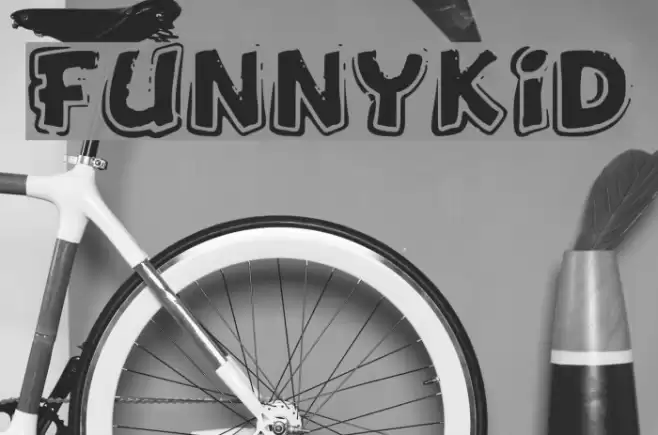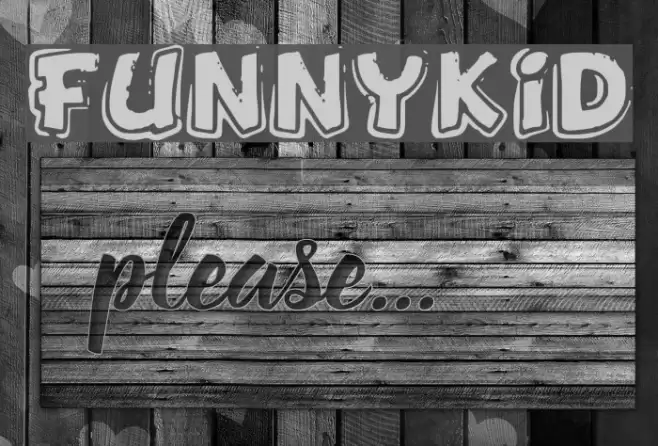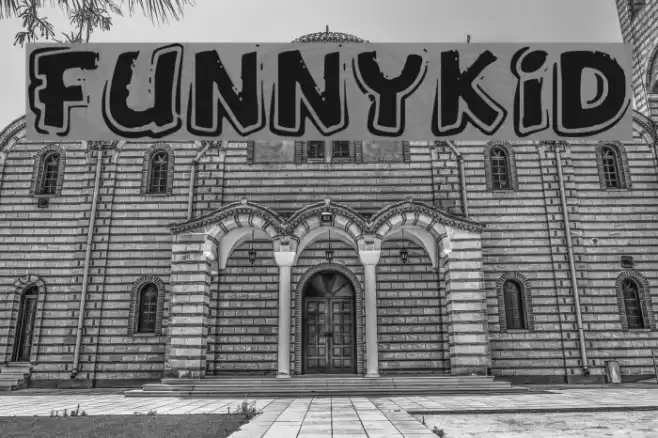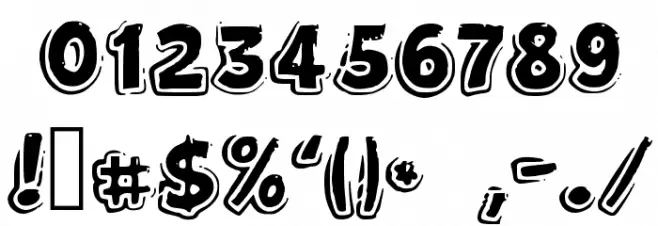
FunnyKid Font
FunnyKid Description
This playful and bold font features a cartoonish style with thick, uneven strokes and a slight shadow effect that gives it a three-dimensional appearance. The letters are uppercase with a whimsical, hand-drawn quality, making them stand out with a fun and energetic vibe. The numbers and special characters follow the same playful design, ensuring consistency across all elements. This font is perfect for projects that require a lively and informal touch, such as children's books, comic strips, or playful branding materials.
A playful, bold font with a cartoonish, hand-drawn style and shadow effect from Uncategorized fonts.
- Proposed Projects: Ideal for children's books, comic strips, playful branding, and fun posters.
- Overall Style: Playful, Cartoonish, Fun
- Use Case: Headlines, Posters, Branding